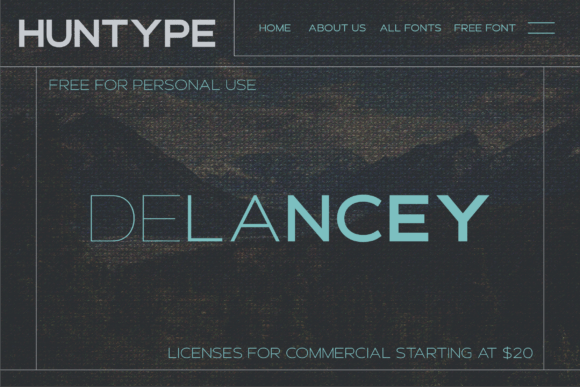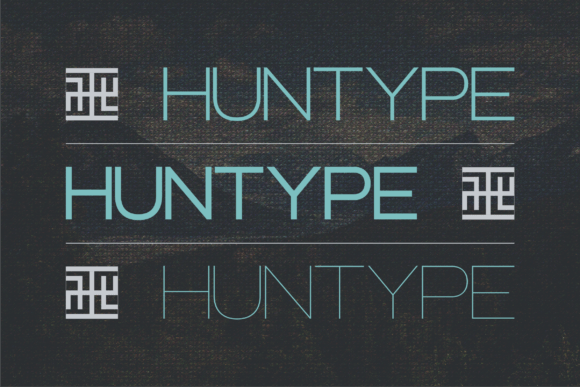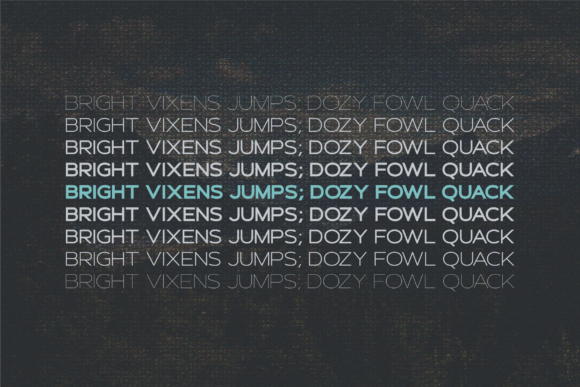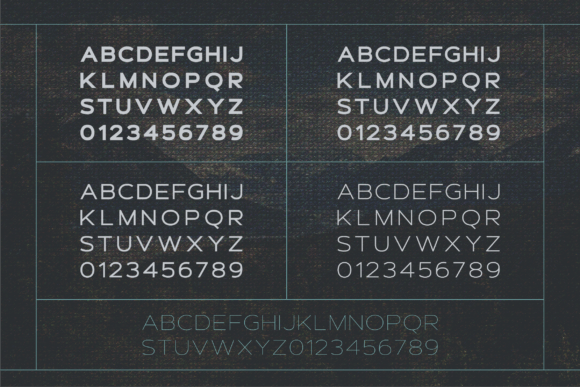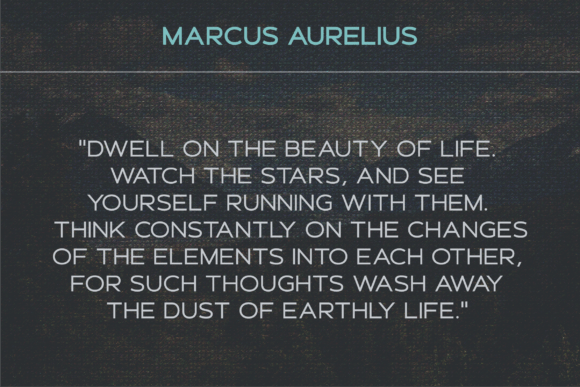
Introducing Delancey Font: A Modern and Versatile Typeface for Every Design Need
In the world of typography, a font can make all the difference in the success of a design project. With so many options available, it’s essential to choose a typeface that not only resonates with your brand’s voice but also elevates your visual identity. This is where Delancey Font comes in – a modern and versatile font family that seamlessly blends clean geometric forms with subtle sophistication.
A Harmonious Balance of Sharp Lines and Gentle Curves
Delancey Font is characterized by its precise letterforms and contemporary aesthetic, making it an excellent choice for designers and crafters looking for a typeface that can adapt to various design applications. The font family consists of five distinct weights: Thin, Light, Regular, Bold, and Black, each standing alone as impactful and refined in its own right.
Exploring the Delancey Font Family
Let’s dive deeper into the Delancey Font family and explore the unique characteristics of each weight:
- Delancey Black: Bold and impactful, Delancey Black is perfect for commanding headlines that demand attention. Its robust presence makes it an excellent choice for titles, slogans, and key messages that need to leave a lasting impression.
- Delancey Bold: Strong and persuasive, Delancey Bold is ideal for key messages that require a sense of confidence and authority. Its substantial presence ensures that your message is conveyed with clarity and conviction.
- Delancey Regular: A balanced and versatile mid-weight, Delancey Regular is suitable for diverse applications, from body text to captions. Its neutral tone makes it an excellent choice for designs that require a clean and professional look.
- Delancey Light: Subtle and elegant, Delancey Light is perfect for refined designs that require a touch of sophistication. Its delicate presence ensures that your text is legible without overpowering the overall design.
- Delancey Thin: Delicate and sophisticated, Delancey Thin adds a minimalist touch to your design. Its subtle presence makes it ideal for designs that require a clean and airy feel.
Why Choose Delancey Font?
So, what sets Delancey Font apart from other typefaces? Here are a few reasons why designers and crafters should consider adding Delancey to their font library:
- Versatility: With five distinct weights, Delancey Font offers a range of options for various design applications, from headlines to body text.
- Legibility: Delancey’s precise letterforms and clean geometric forms ensure excellent legibility, making it suitable for designs that require clarity and precision.
- Sophistication: Delancey’s subtle sophistication and elegant curves add a touch of refinement to any design, making it perfect for brands that require a professional and polished visual identity.
Using Delancey Font in Your Design Projects
Delancey Font can be used in a variety of design projects, from print materials to digital applications. Here are a few ideas to get you started:
- Branding: Use Delancey Font to create a professional and polished visual identity for your brand, from logos to business cards.
- Web Design: Delancey Font is perfect for web design projects, from headings to body text, ensuring a clean and legible online presence.
- Print Materials: Use Delancey Font in print materials such as brochures, flyers, and posters to add a touch of sophistication and elegance.
In conclusion, Delancey Font is a modern and versatile typeface that offers a range of design possibilities. With its precise letterforms, subtle sophistication, and adaptable style, Delancey Font is an excellent choice for designers and crafters looking to elevate their visual identity. Whether you’re working on a branding project, web design, or print materials, Delancey Font is sure to make a lasting impression.